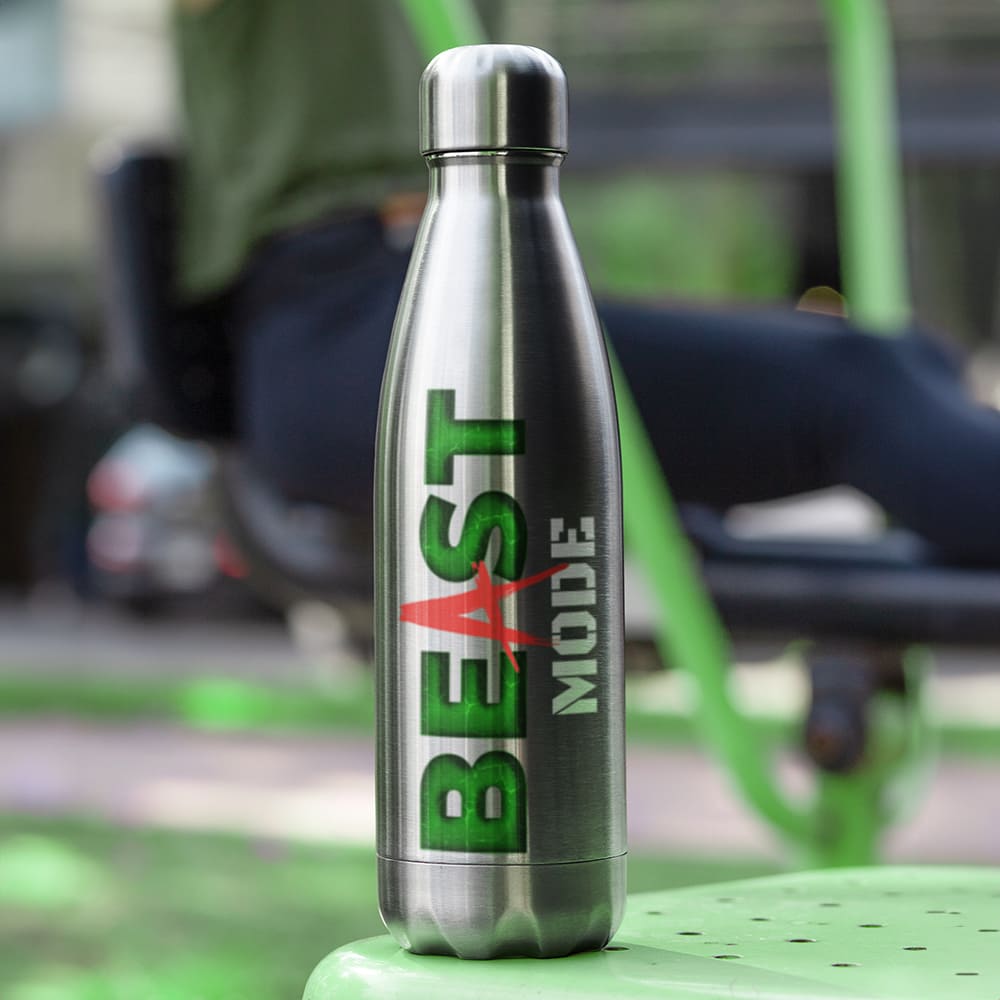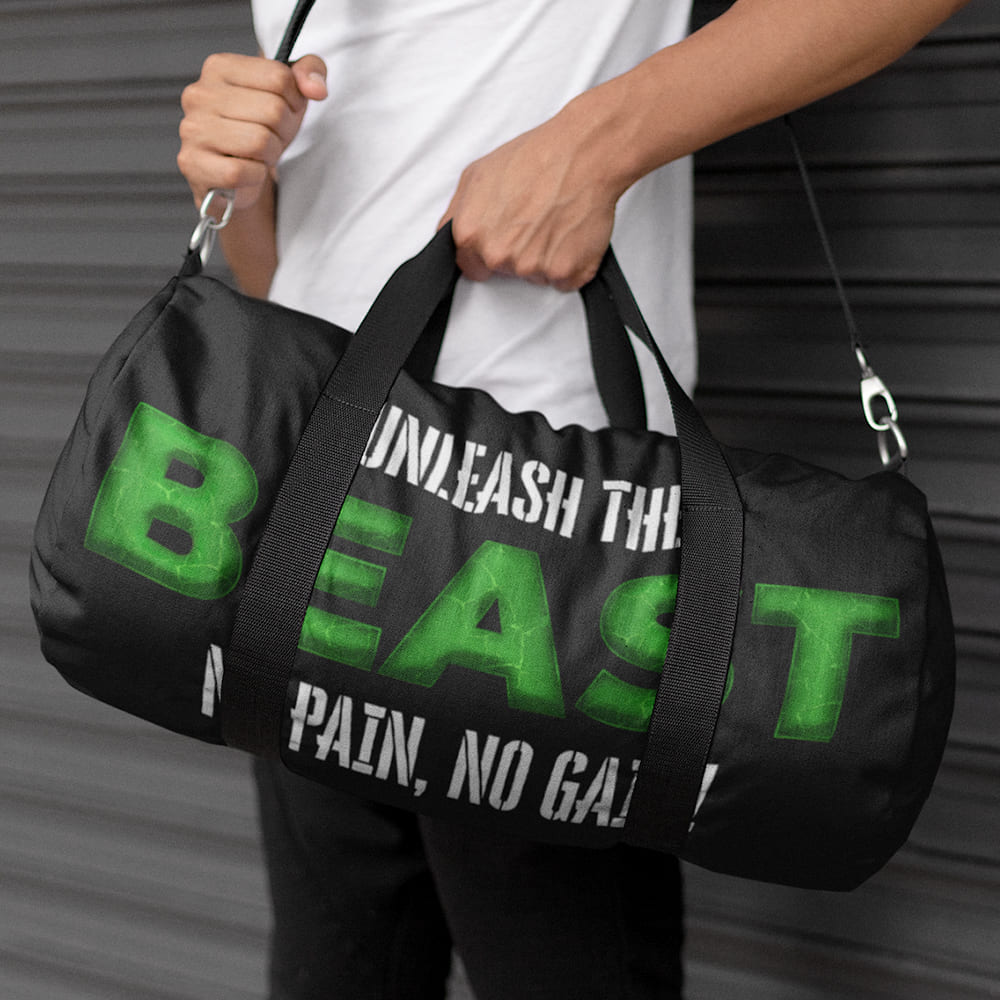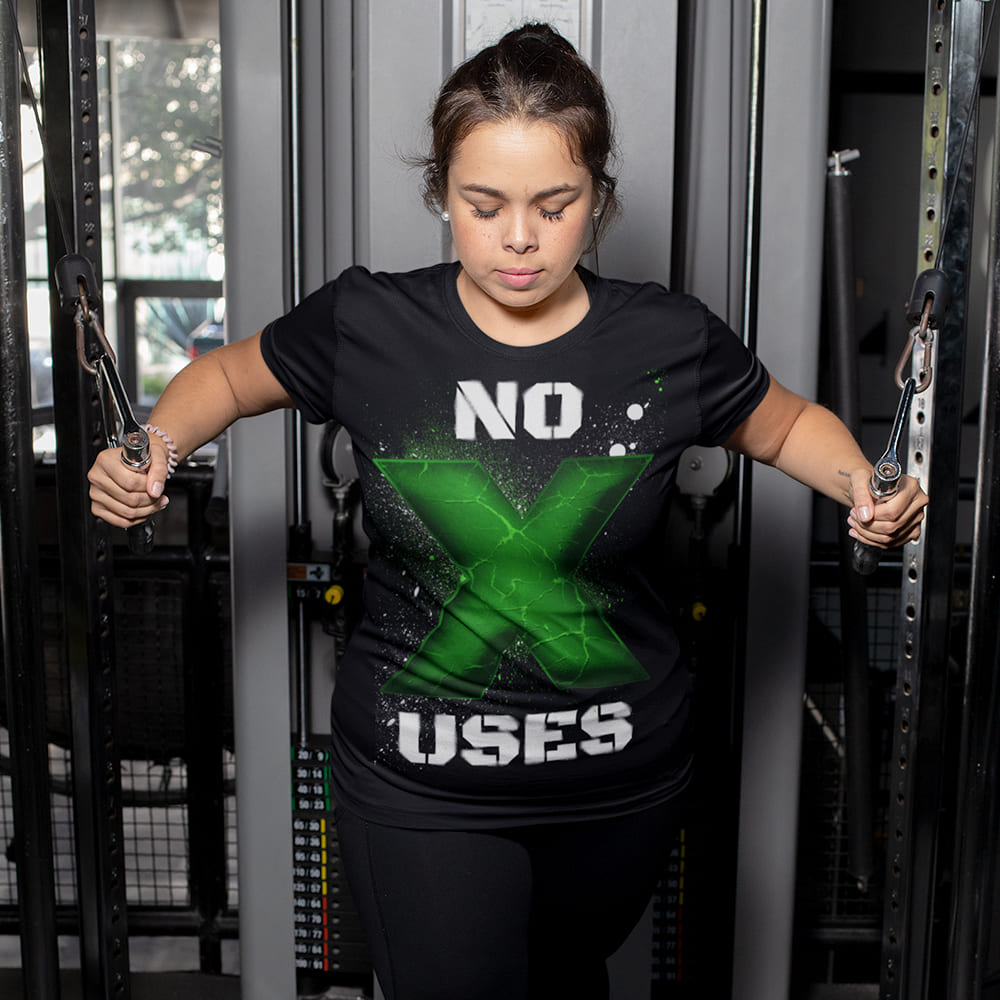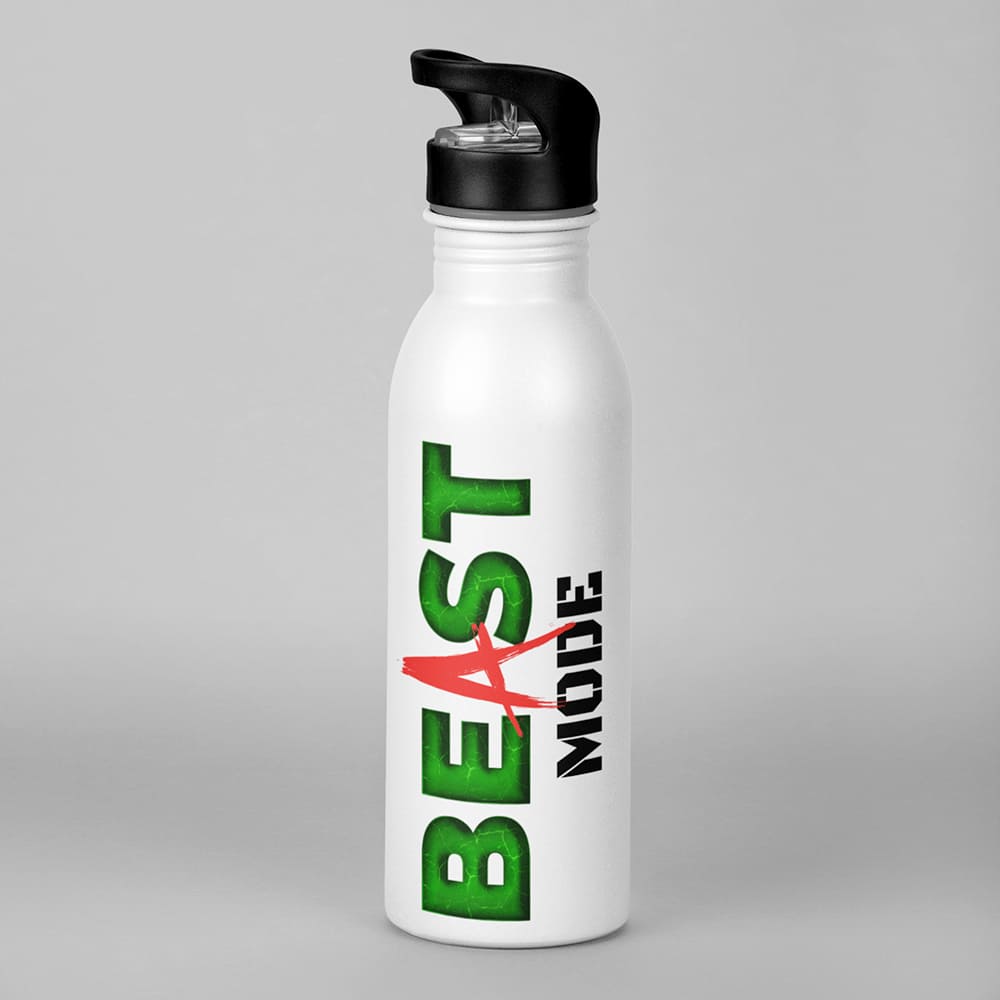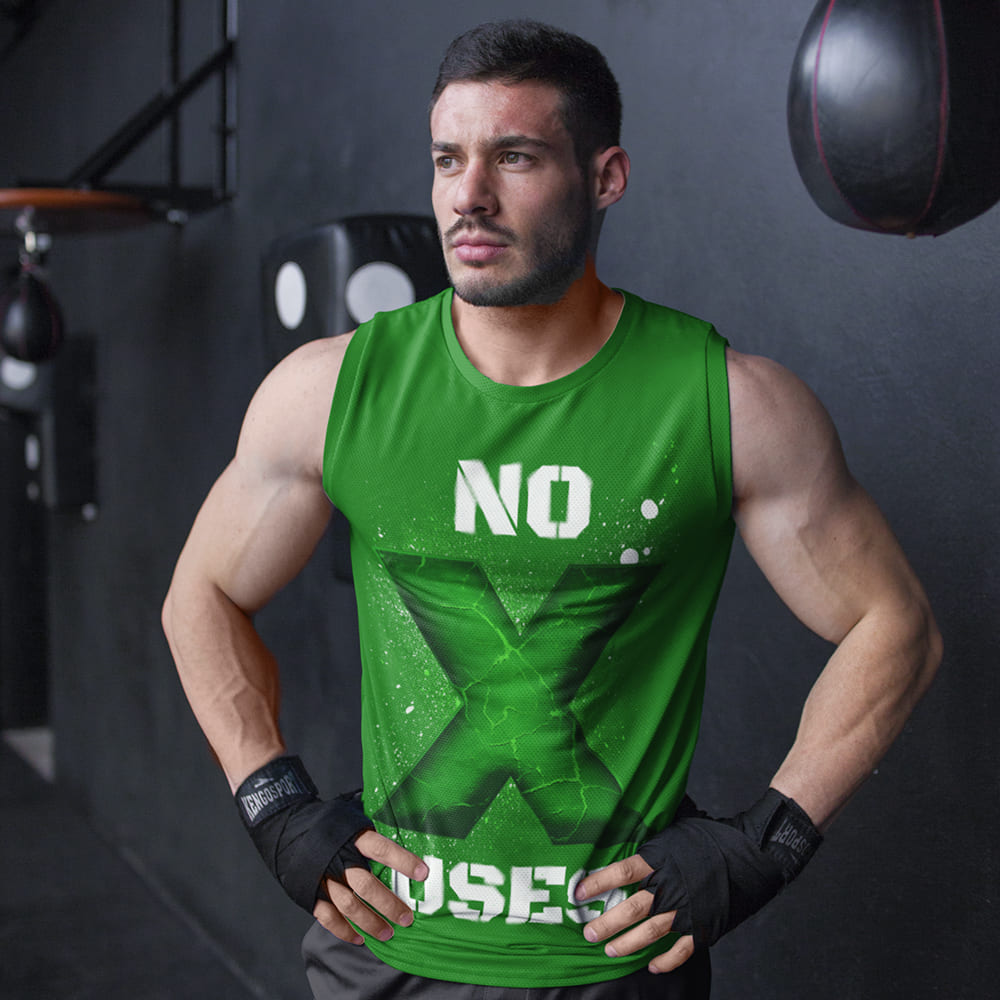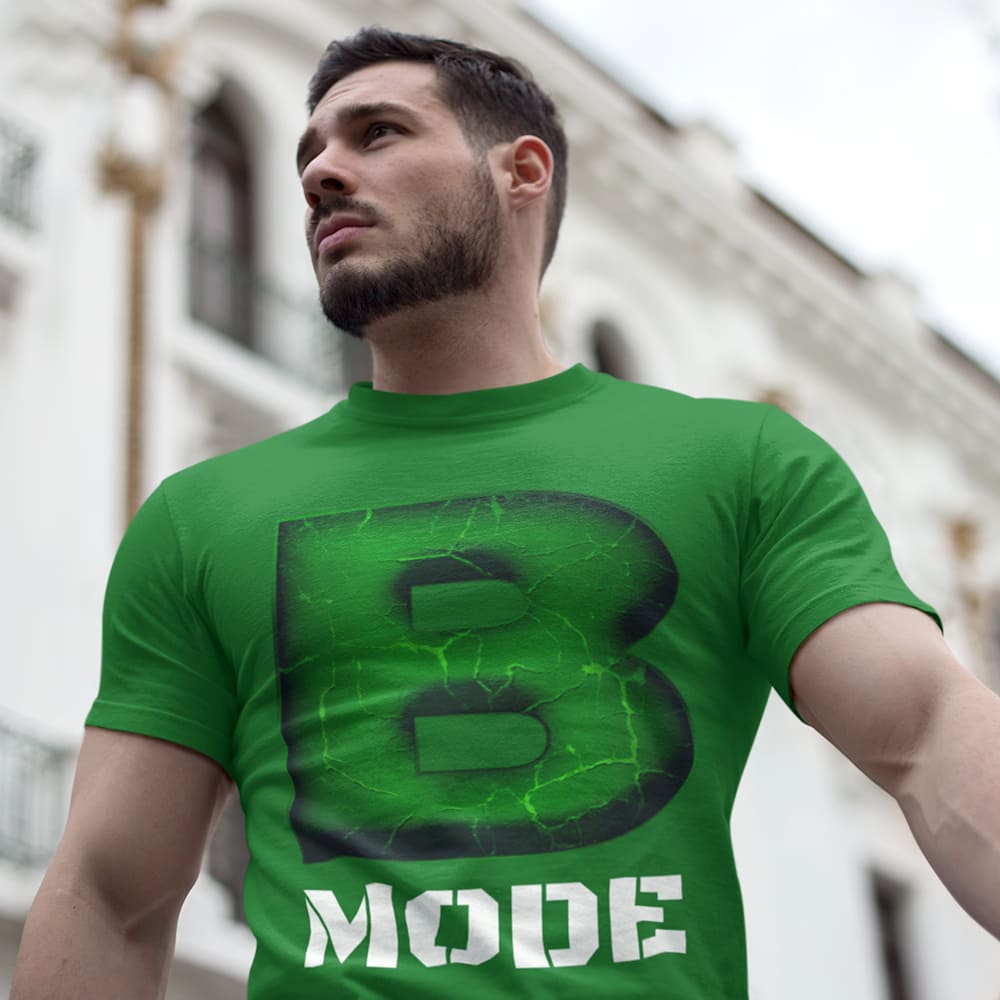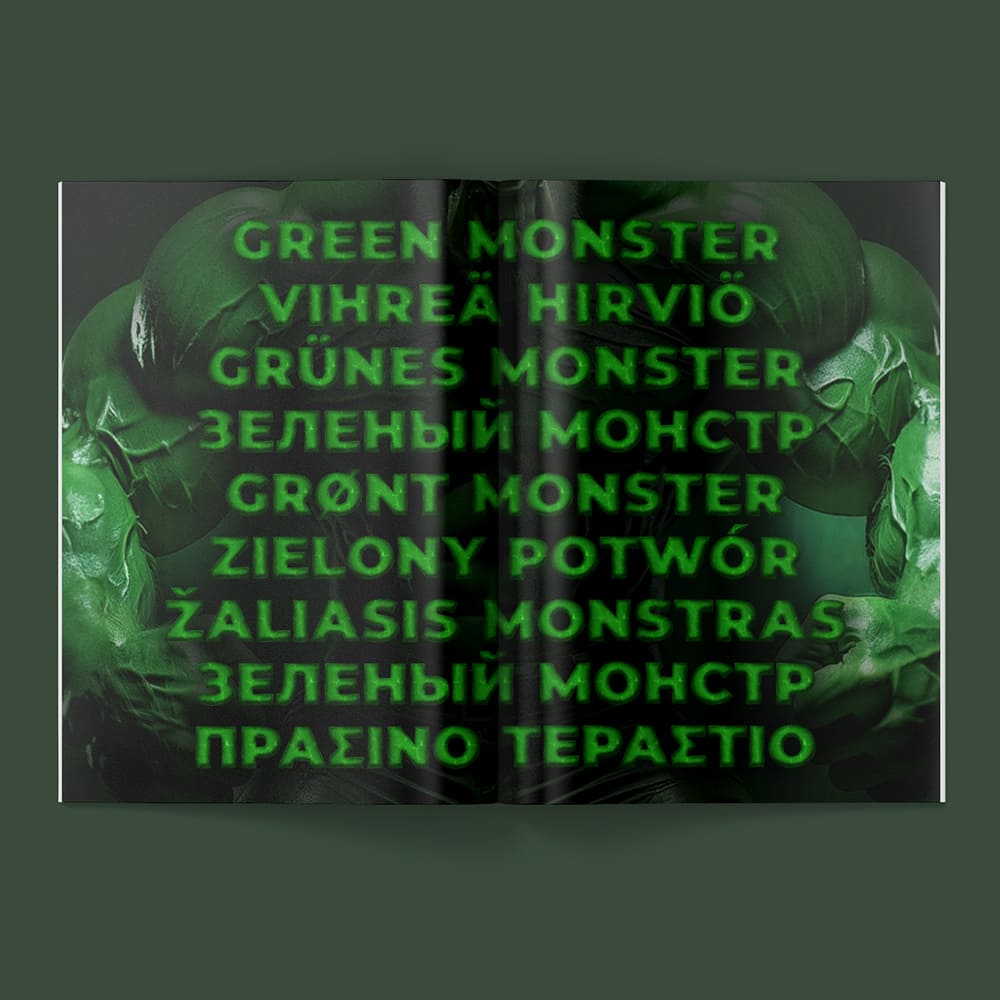
Green Monster Font
Powerful, Fierce, Unstoppable! 💪💥🟢
Warning! This font is not for the faint of heart! The Green Monster Font unleashes raw power and pure energy into your design—inspired by Bruce Banner, who you really don’t want to make angry… because when he gets mad, things get out of control!
Why Choose the Green Monster Font?
🔹 Unstoppable Power – A font as powerful as a raging force of nature! Perfect for gaming, action movies, comics, merchandise, and explosive designs.
🔹 Bold & Dynamic Aesthetic – Thick, strong letterforms with raw energy that make every headline feel larger than life.
🔹 Impossible to Ignore – Just like a green monster that refuses to stay in the shadows—this font demands attention and respect!
🔥 EVERY FONT ROCKER FONT COMES WITH 325 GLYPHS & SUPPORTS OVER 100+ LANGUAGES WORLDWIDE, INCLUDING CYRILLIC, GREEK & MORE.
Make Your Design Stronger!
With the Green Monster Font, your project will be bigger, bolder, and completely unstoppable! A font for true powerhouses—but remember: Don’t make him angry… you wouldn’t like him when he’s angry!Â
🔹 Go bigger. Get stronger. Choose the Green Monster Font!